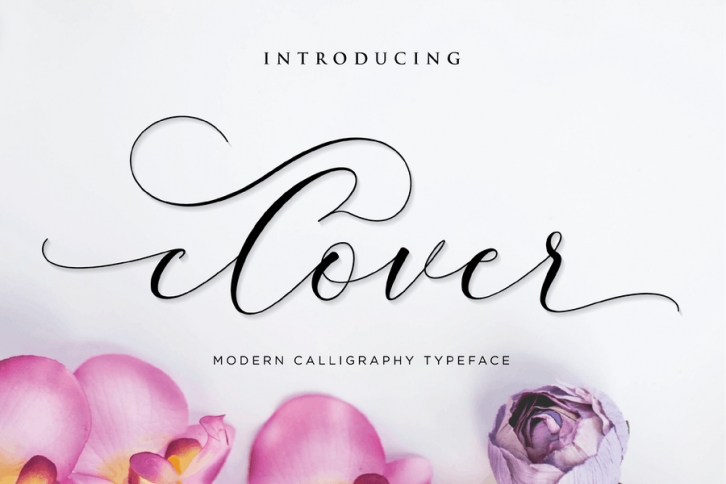
Introducing Clover script, a stylish Font Style. This beautiful script font offers your personal touch to your latest art project with an elegant, classy and modern look.
The Clover script offers gorgeous typographic perfect for many different projects such as logos & branding, invitations, stationery, wedding designs, social media posts, advertisements, product packaging, product designs, labels, photography, watermarks, special events or anything that needs handwriting taste. What's Included:
- Numeral and punctuation
- Stylistic Alternates & Ligatures
- Swashes
- International Language